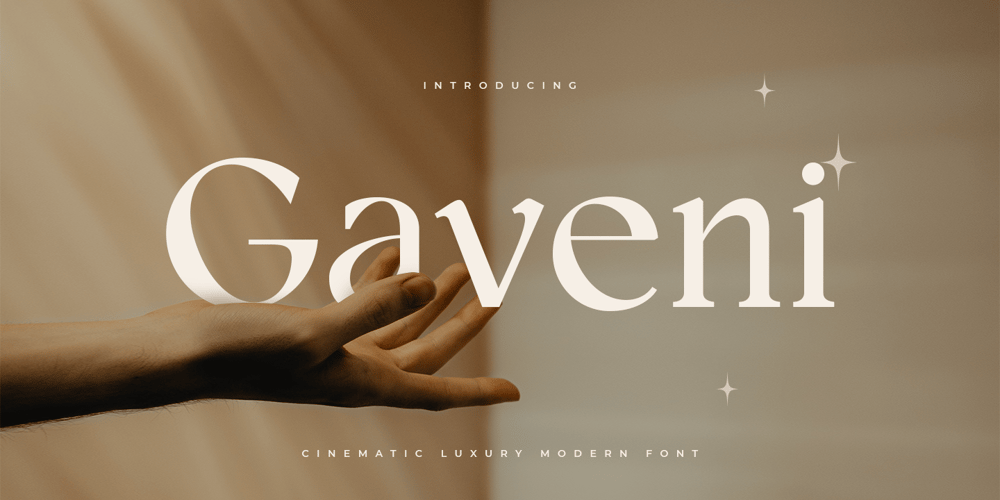
Gaveni
Gaveni font
Gaveni Font Family was designed by Zamroni Hamzah and published by Sensatype Studio. Gaveni contains 1 styles and family package options. Gaveni, a Cinematic Luxury Modern Font is a Modern Display font for Luxury, Elegant, and Cinematic Logo and Branding needs, with Cool style touch, font that you can combine to get any variations and unique shapes easily just in seconds with choose alternates of them. It is a serif display font with moderate contrast that perfect for branding projects, logo, wedding designs, social media posts, advertisements, product packaging, product designs, label, photography, watermark, invitation, stationery, and any projects, it makes with a high level of legibility.What’s Included: Gaveni font Alternate / Ligature Characters Character set A-Z Numerals & Punctuation Accented Characters (West Europe) Works on PC & Mac Recommended using Adobe Illustrator or Adobe Photoshop. Wish you enjoy our font. ๐Ÿ™‚